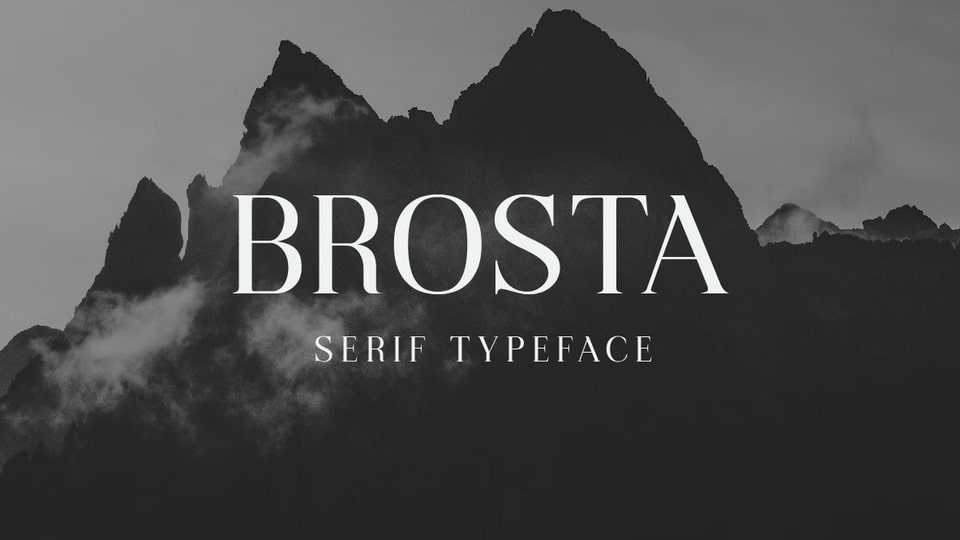
Download Brosta Serif font, the typeface of choice for designers looking to add a touch of sophistication and modernity to their projects.
Designer: Yukita Creative